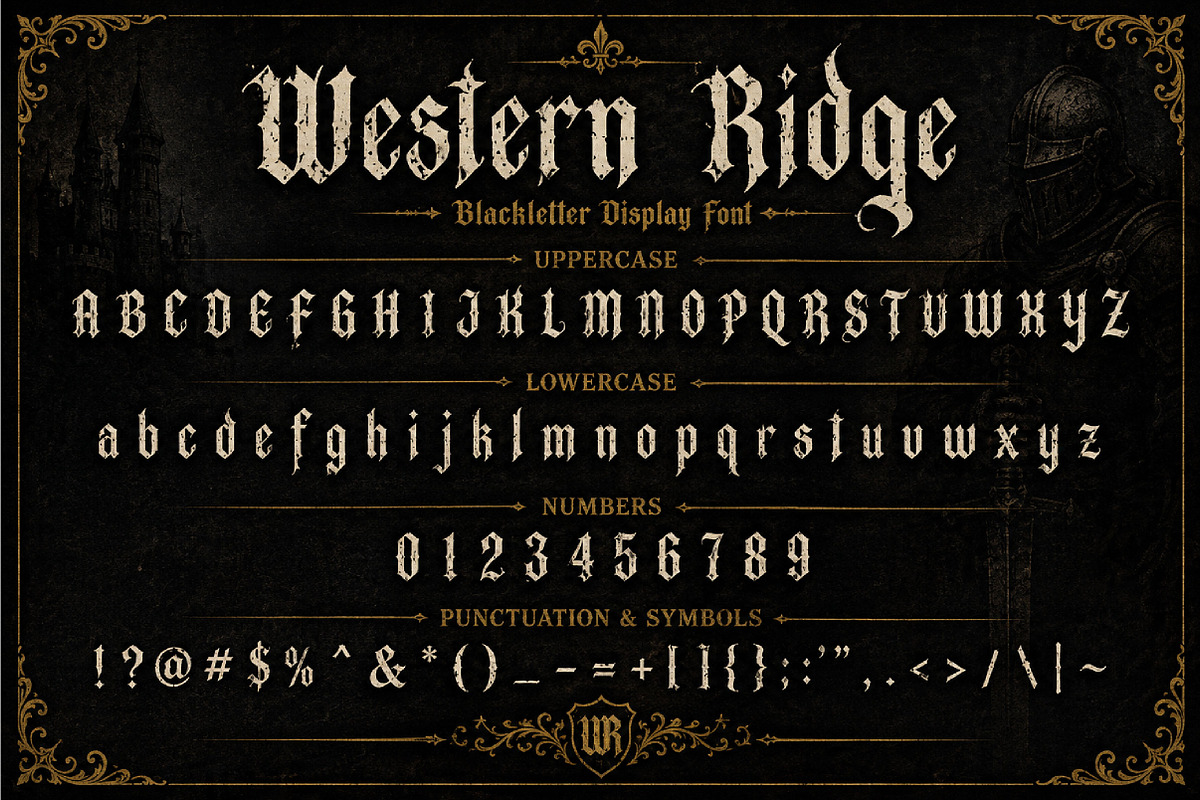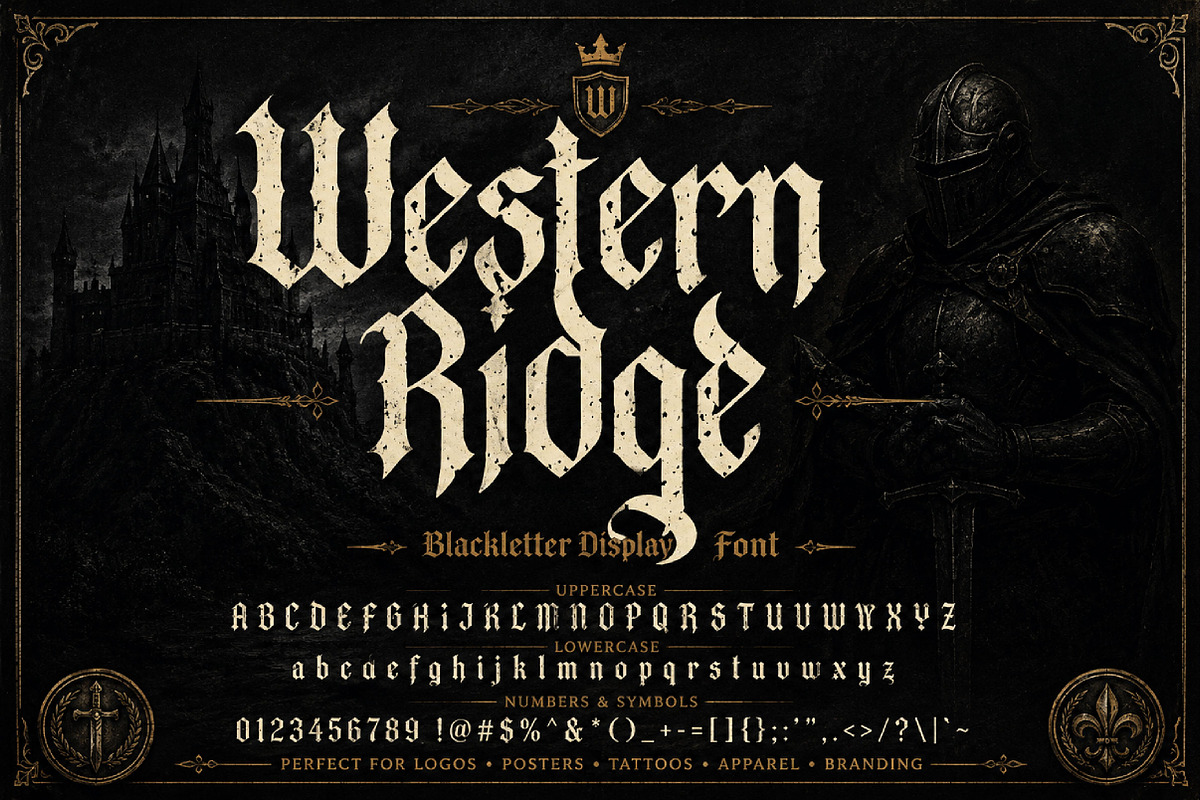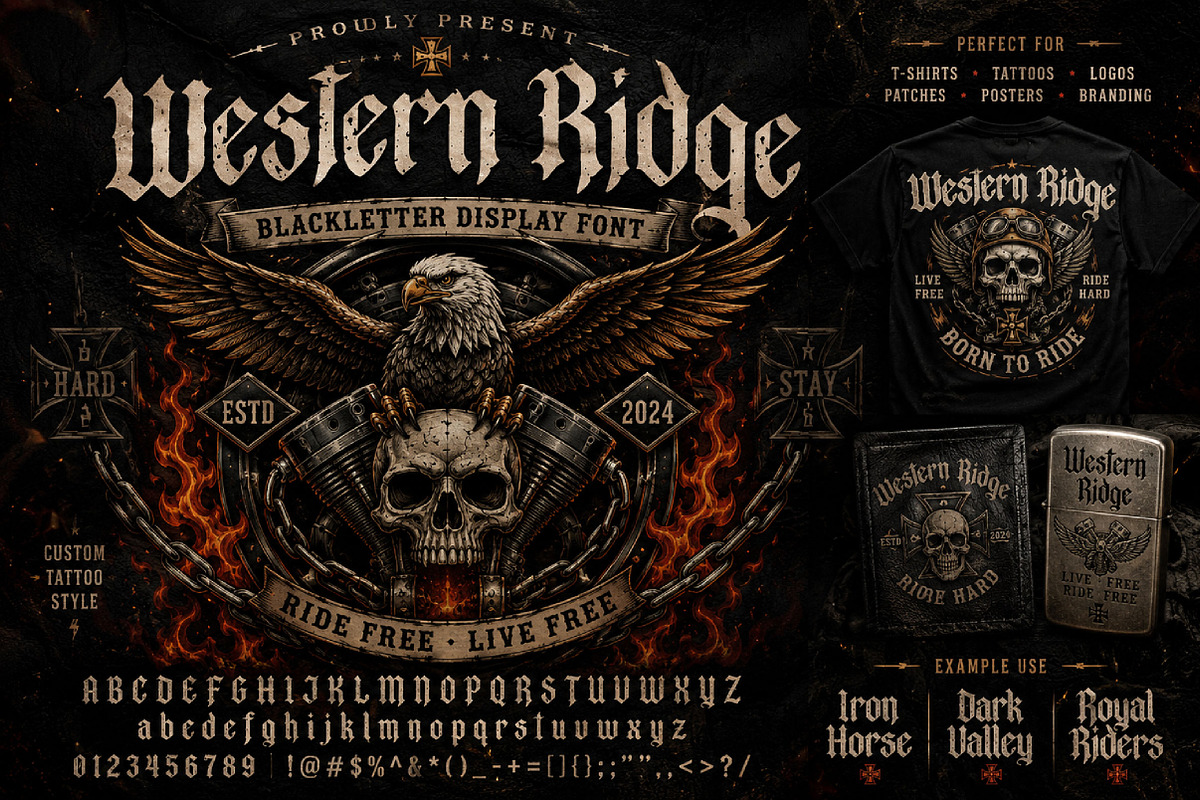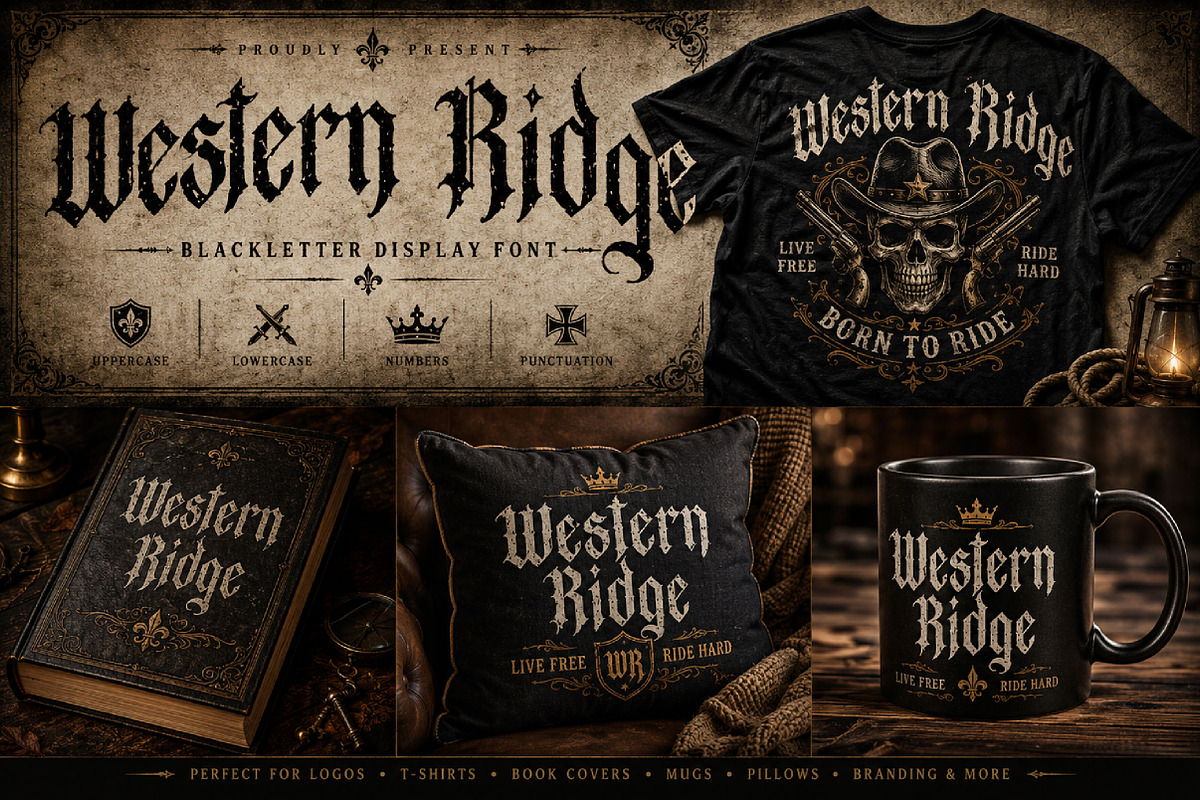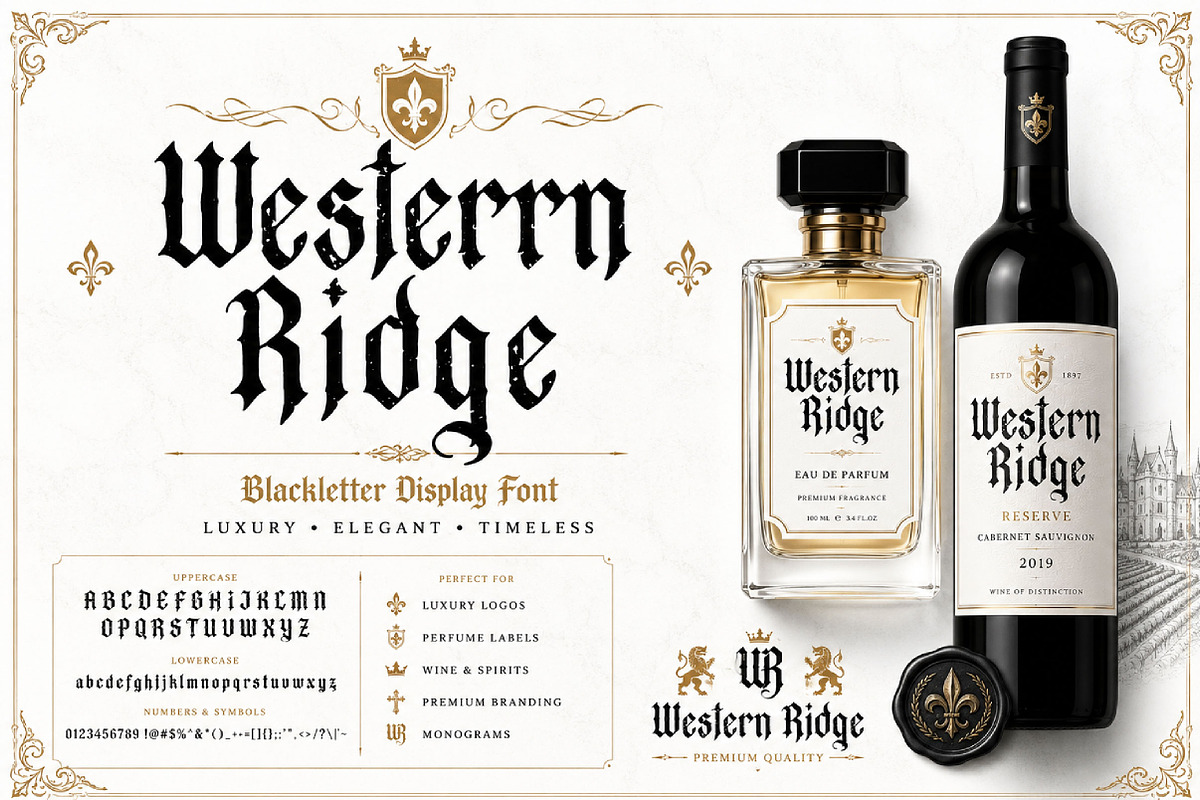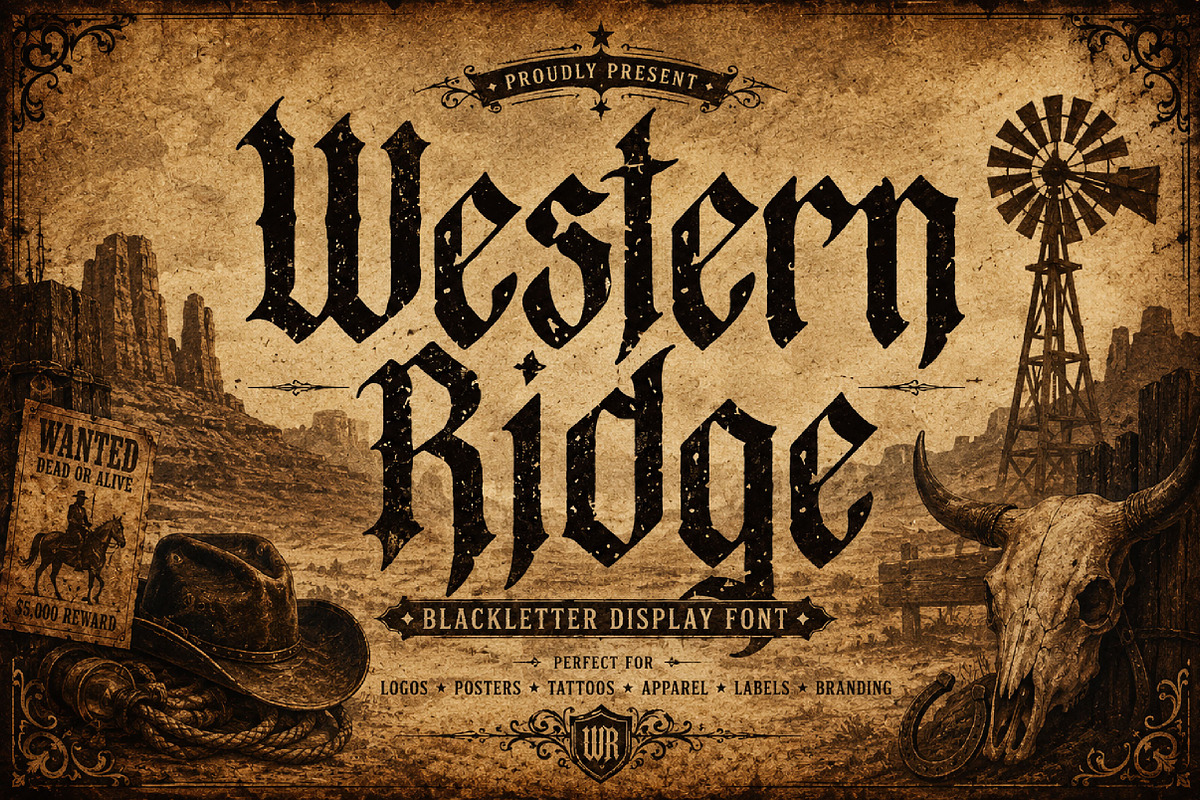
Western Ridge
Western Ridge – Vintage Western Blackletter Font
Western Ridge is a bold vintage western blackletter font with rugged gothic details, perfect for cowboy branding, western posters, apparel, whiskey labels, logos, and classic vintage typography.
Western Ridge is a striking western-inspired blackletter display font that combines rugged cowboy aesthetics with classic gothic typography. Designed with bold strokes, sharp serif details, and distressed vintage texture, this font delivers a strong old-west character with timeless appeal.
Inspired by western saloons, vintage signage, outlaw culture, and classic Americana design, Western Ridge is perfect for branding projects that require a bold and authentic rustic identity. Its decorative blackletter style creates a powerful visual impact while maintaining readability for display purposes.
This font works beautifully for western logos, whiskey packaging, country music artwork, vintage posters, apparel branding, merchandise, tattoo-inspired graphics, and retro typography projects. The textured details add handcrafted charm and an aged appearance that enhances its vintage personality.
Whether used for print or digital designs, Western Ridge brings bold western attitude and classic gothic elegance to every composition.
Western branding
Cowboy-themed designs
Vintage logos
Whiskey & liquor packaging
Country music artwork
Apparel & merchandise
Posters & signage
Tattoo-inspired graphics
Rustic branding
Retro typography
Saloon-style designs
Display headlines
Uppercase letters
Lowercase letters
Vintage western blackletter style
Distressed textured details
Sharp gothic letterforms
Bold display appearance
Rustic old-west aesthetic
Perfect for logos and titles
Suitable for print and digital use